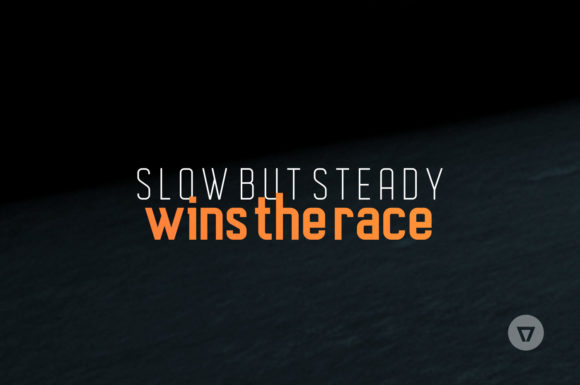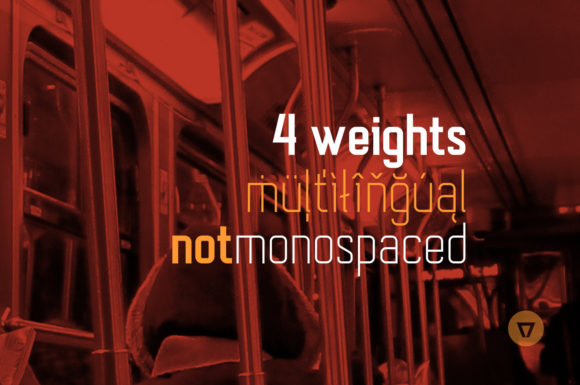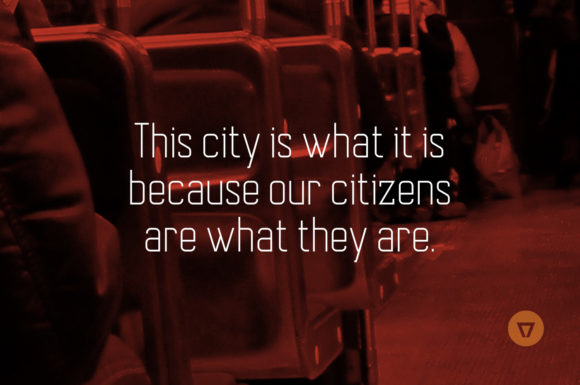
Introducing Autobus Font: The Ultimate Sans Serif for Modern Designs
In the world of typography, fonts play a crucial role in shaping the visual identity of a brand. With numerous font styles to choose from, finding the perfect one that resonates with your brand’s personality can be a daunting task. However, if you’re looking for a font that exudes a cool, robotic vibe, look no further than Autobus Font. This sans serif font is designed to elevate your branding projects, making it an excellent choice for logos, t-shirt printing, sport designs, and more.
What Makes Autobus Font Stand Out?
Autobus Font boasts a unique, robotic style that sets it apart from other sans serif fonts. Its clean lines, geometric shapes, and precision-crafted details give it a futuristic feel that’s perfect for modern designs. Whether you’re working on a logo, brochure, or merchandise, Autobus Font is sure to make a lasting impression. Its versatility allows it to shine in a wide range of contexts, from digital platforms to print materials.
Key Features of Autobus Font
- Robotic Style: Autobus Font’s robotic style gives it a distinctive edge, making it perfect for designs that require a futuristic or tech-inspired look.
- Sans Serif: The font’s sans serif design ensures that your text remains clean and legible, even at smaller font sizes.
- Versatility: Autobus Font is suitable for a wide range of applications, including logos, t-shirt printing, sport designs, and more.
- High-Quality Design: The font is precision-crafted to ensure that it looks stunning in various contexts, from digital displays to print materials.
Why Choose Autobus Font for Your Design Projects?
Autobus Font offers several benefits that make it an excellent choice for designers and crafters. Here are a few reasons why you should consider using Autobus Font for your next project:
- Unique Visual Identity: Autobus Font helps you create a unique visual identity for your brand, setting you apart from competitors.
- Easy to Read: The font’s clean design ensures that your text remains easy to read, even at smaller font sizes.
- Customization: Autobus Font can be easily customized to fit your brand’s personality, making it a versatile choice for various design projects.
- Time-Saving: With Autobus Font, you can save time and effort in designing and refining your typography, allowing you to focus on other aspects of your project.
Autobus Font is an exceptional sans serif font that offers a cool, robotic style perfect for modern designs. Its versatility, high-quality design, and ease of use make it an excellent choice for designers and crafters. Whether you’re working on a logo, t-shirt printing, sport designs, or more, Autobus Font is sure to elevate your branding projects and leave a lasting impression.